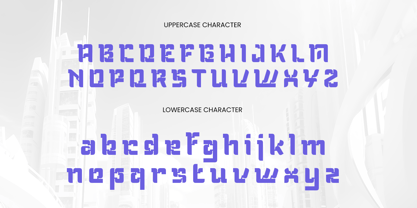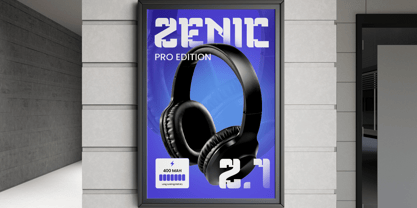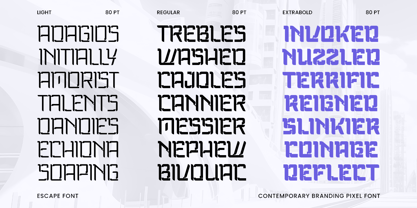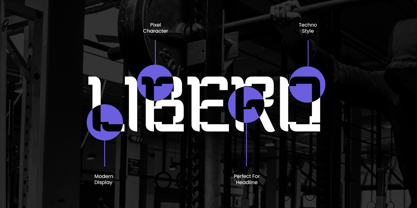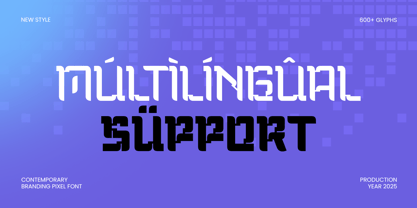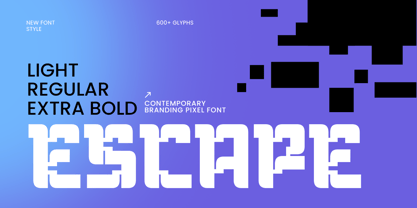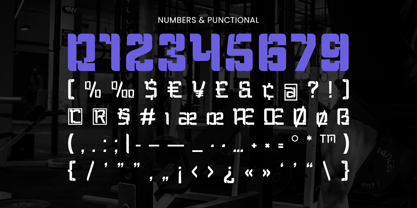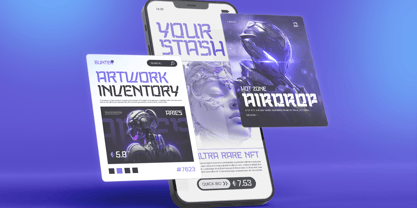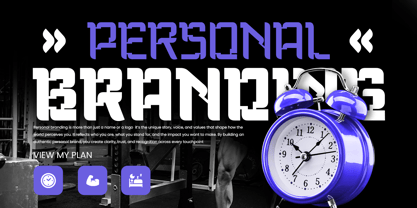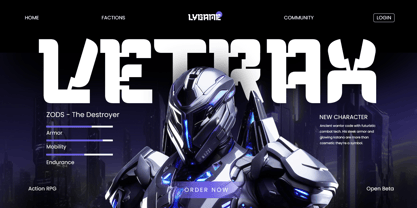
Escape
von Sensatype Studio
Die Schriftfamilie Escape wurde von Zamroni Hamzah entworfen und von Sensatype Studio veröffentlicht. Escape enthält 3 Stile und Familienpaketoptionen. Mehr über diese Familie
ESCAPE is a contemporary branding pixel font family designed for digital, tech, and modern creative projects. Ideal for logos, branding, websites, posters, and user interfaces, it combines retro pixel aesthetics with a clean, contemporary style.
With precise geometric forms and excellent readability, ESCAPE ensures a professional and modern look for both print and digital media, making it perfect for tech brands and creative projects.
ESCAPE – Contemporary Branding Pixel Font Family Features
• Modern pixel-style character set
• Perfect for branding, digital products, and display designs
• Uppercase, lowercase, numerals, and punctuation included
• OpenType features for extra versatility
Multilingual support for Afrikaans, Albanian, Asu, Basque, Bemba, Bena, Breton, Chiga, Cornish, Dutch, English, Estonian, Filipino, Finnish, Friulian, Galician, German, Gusii, Indonesian, Irish, Italian, Kabuverdianu, Kalenjin, Kinyarwanda, Luo, Luxembourgish, Luyia, Machame, Makhuwa-Meetto, Makonde, Malagasy, Manx, Morisyen, North Ndebele, Nyankole, Oromo, Portuguese, Quechua, Romansh, Rombo, Rundi, Rwa, Samburu, Sango, Sangu, Scottish Gaelic, Sena, Shambala, Shona, Soga, Somali, Spanish, Swahili, Swedish, Swiss, and more.
Designer: Zamroni Hamzah
Foundry: Sensatype Studio